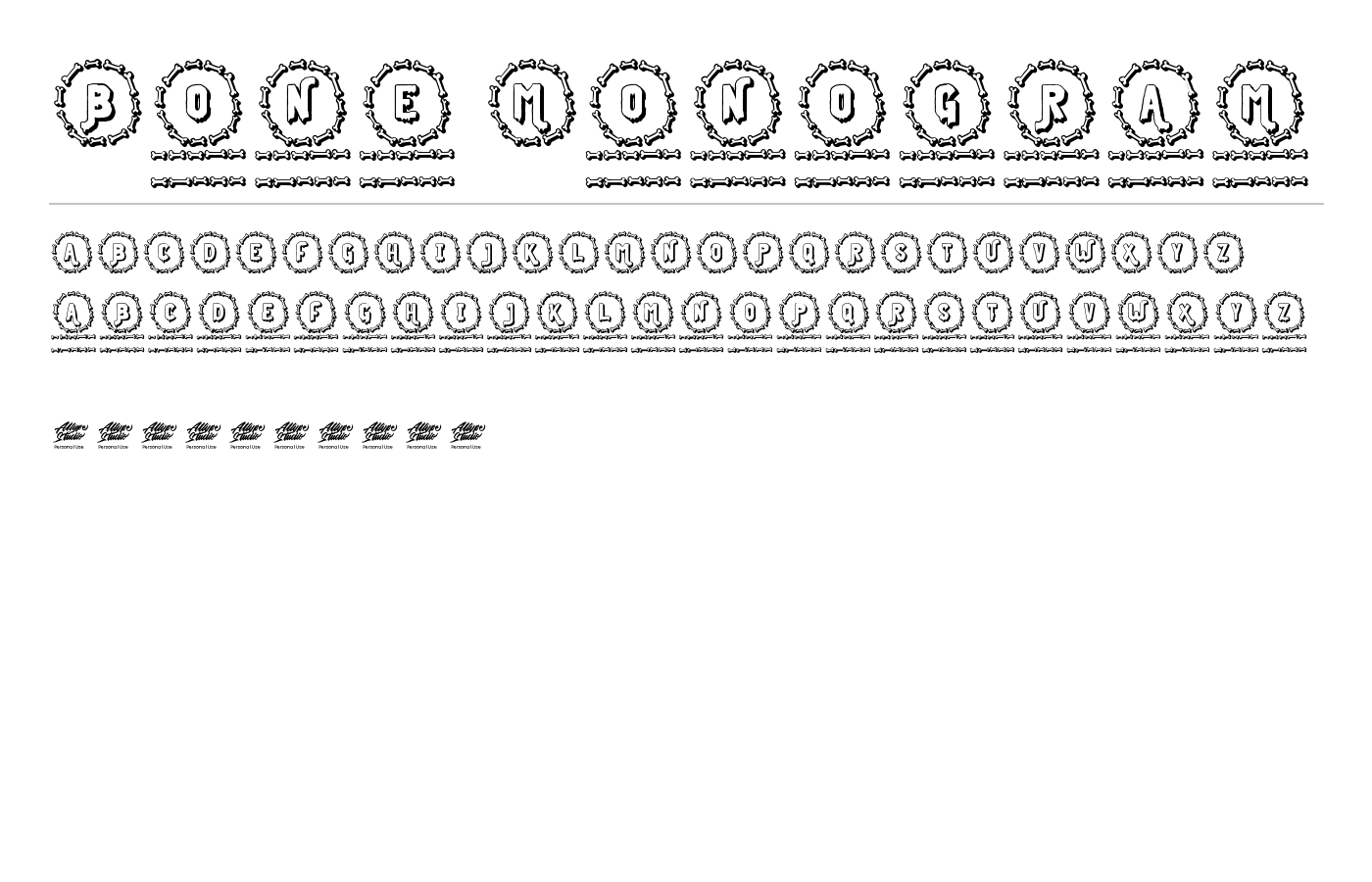
Bone Monogram Font is a playful and bold display typeface featuring uppercase letters encircled by quirky bone motifs, giving it a unique, themed aesthetic. Its strong, sturdy letterforms combined with decorative elements make it perfect for creative projects needing a fun, slightly spooky vibe, such as Halloween designs, posters, or themed branding. This font adds character and charm where a distinctive, eye-catching style is desired.
Bone Monogram Font
About Bone Monogram Font
| Font family | Bone Monogram Font |
| Designer | Fadli Ramadhan Iskandar |